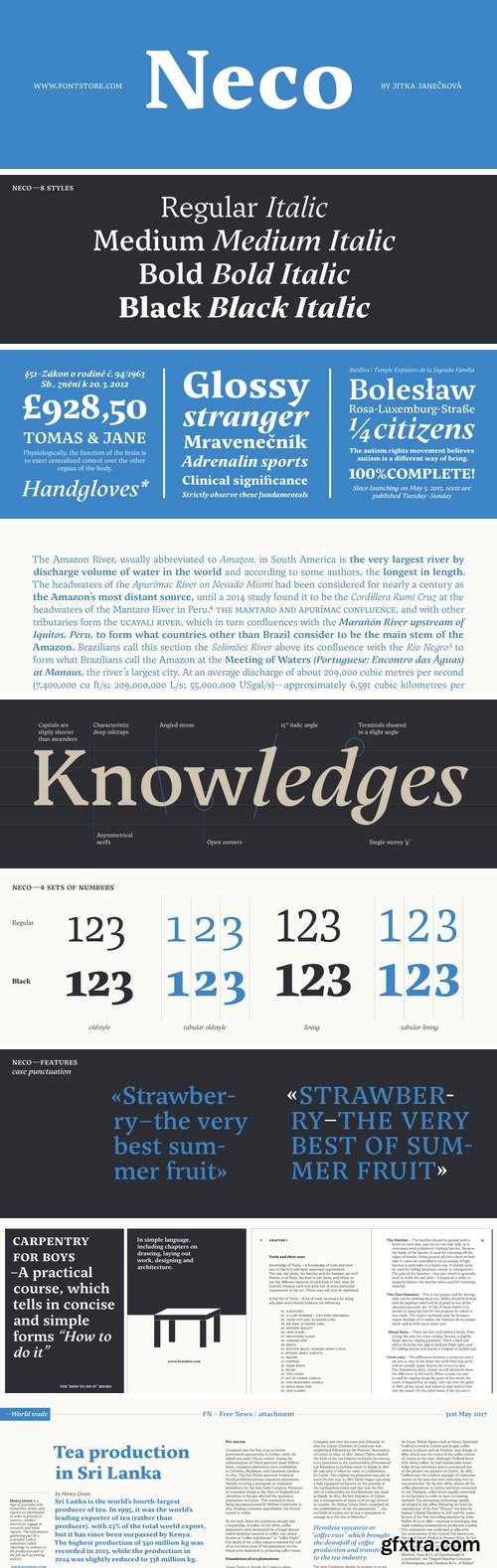
Neco Font Family - 8 Fonts
Neco is a family of serif fonts, designed for use in headlines as well as smaller-sized texts of short and medium length. The fonts’ serifs have been designed with chunky, prominent wedge-shaped forms. The letterforms feature a diagonal axis of stress. As a family, Neco includes four weights, ranging from Regular through Black. Each weight has an upright and an italic font on offer. Neco’s letterforms have a high amount of stroke contrast, and the degree of contrast really increases from weight to weight. The Black and Black Italic fonts are particularly dynamic, in terms of their appearance. Neco’s lowercase letters have a tall x-height, and their ascenders rise up above the height of the fonts’ capitals. The letterforms in the Italic fonts are not oblique versions of the upright’s glyphs, but true cursive forms. The default numeral style in each font is proportional oldstyle figures, but tabular figures, lining figures, small cap figures, as well as a full range of numerators and denominators for typesetting fractions are in the character set as well. There are also several f-ligatures, substituted into the text by the fonts’ OpenType features. Neco is an excellent choice for use in editorial design, or for typesetting invitations and event-graphics. The fonts were designed by Jitka Jane?ková.